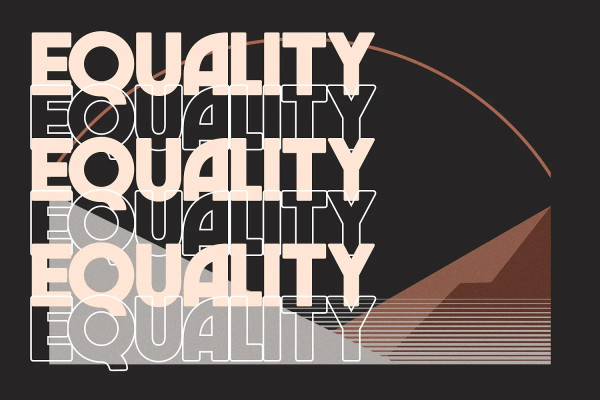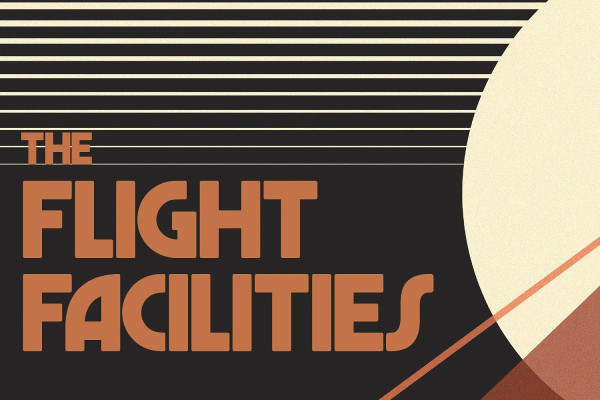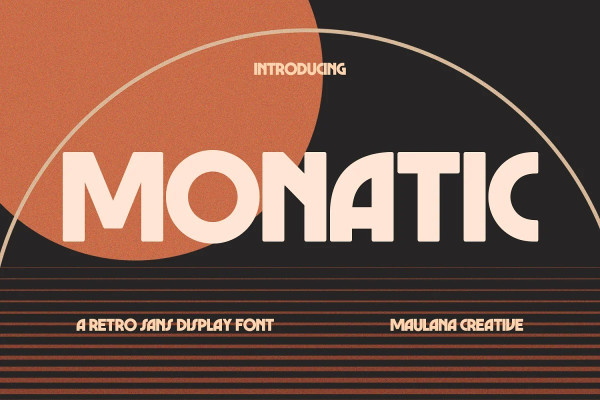
Monatic Font
Monatic Font is an all caps retros vibe sans display font. Bold stroke, fun character with a bit of ligatures and alternates. To give you an extra creative work. Monatic font support multilingual more than 100+ language. This font is good for logo design, Social media, Movie Titles, Books Titles, a short text even a long text letter and good for your secondary text font with script or serif. Make a stunning work with Monaticfont.